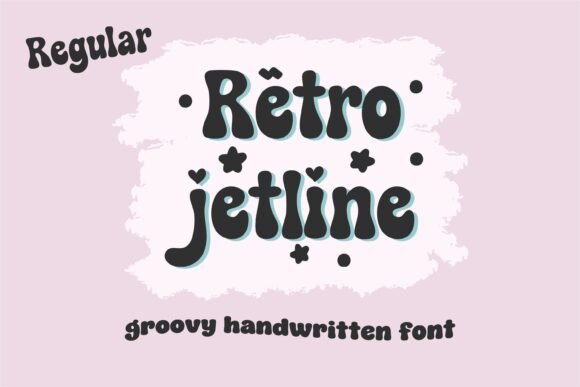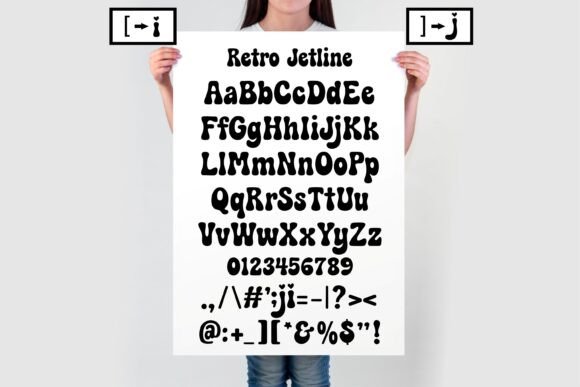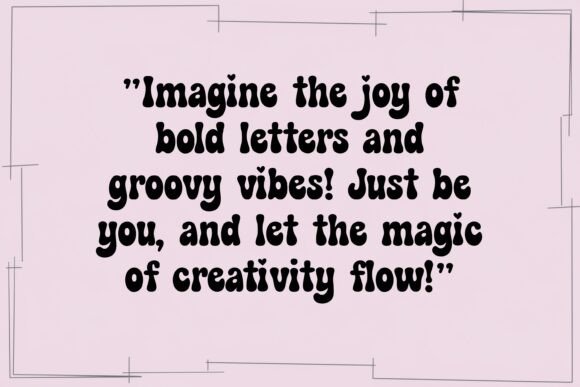
Introduction to Retro Jetline Font
Retro Jetline is ideal for crafting, branding, and decorating your creative projects.
This groovy font bundle includes five different styles: Regular, Bold, Duo, Line, and Outline, giving you endless creative possibilities It’s perfect for wedding invitations, blog headers, and social media posts.
Key Features of Retro Jetline Font
Why Choose Retro Jetline Font?
Retro Jetline Font offers exceptional quality and versatility, making it a valuable addition to your design toolkit. Whether you’re creating for personal projects or commercial use, Retro Jetline Font delivers professional results.